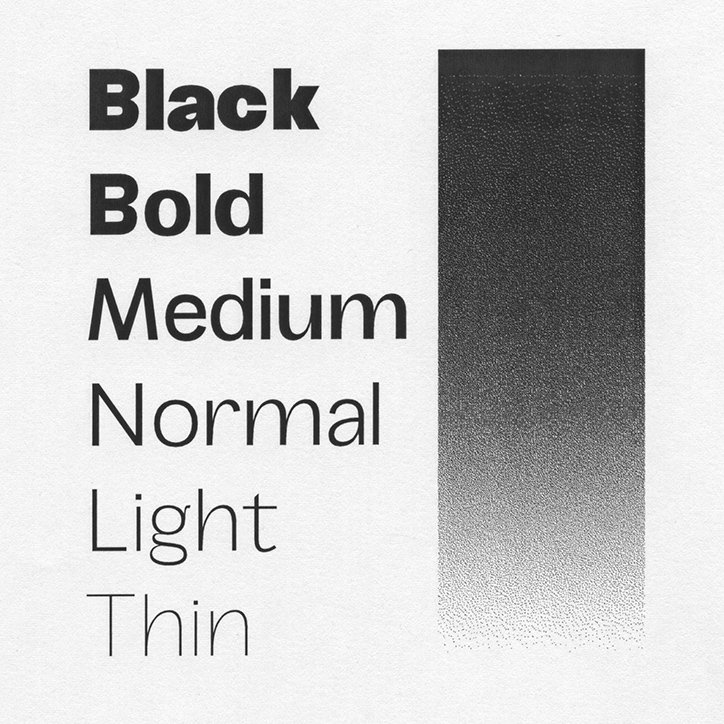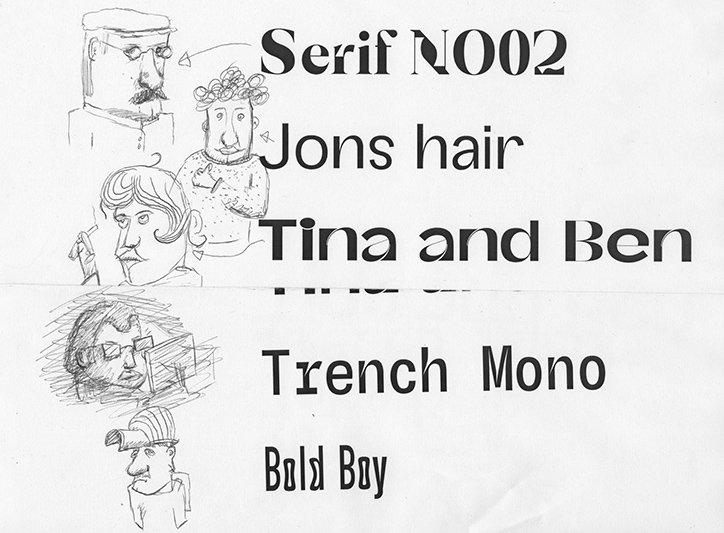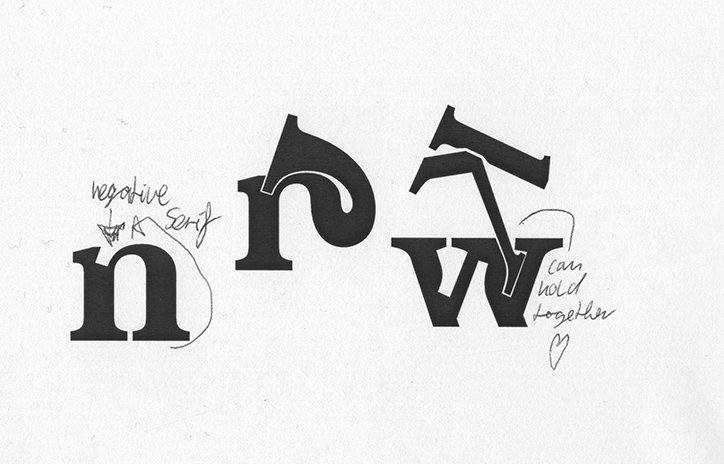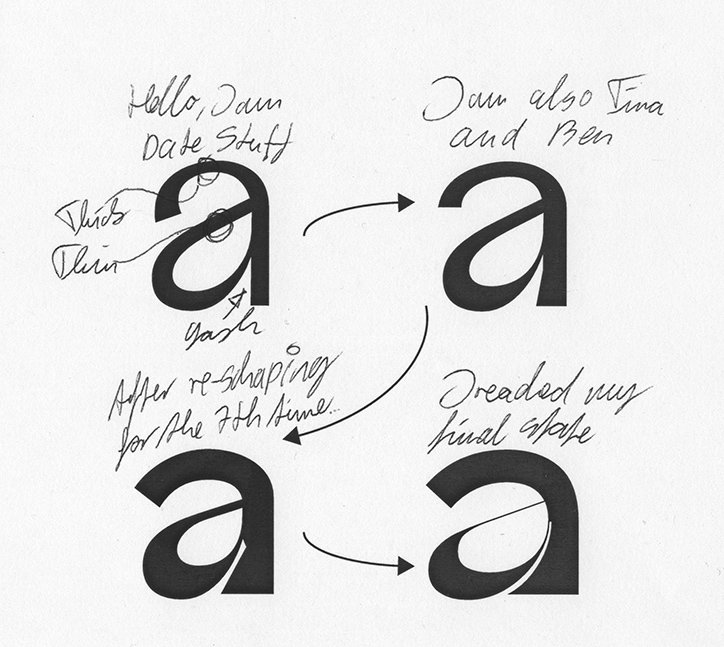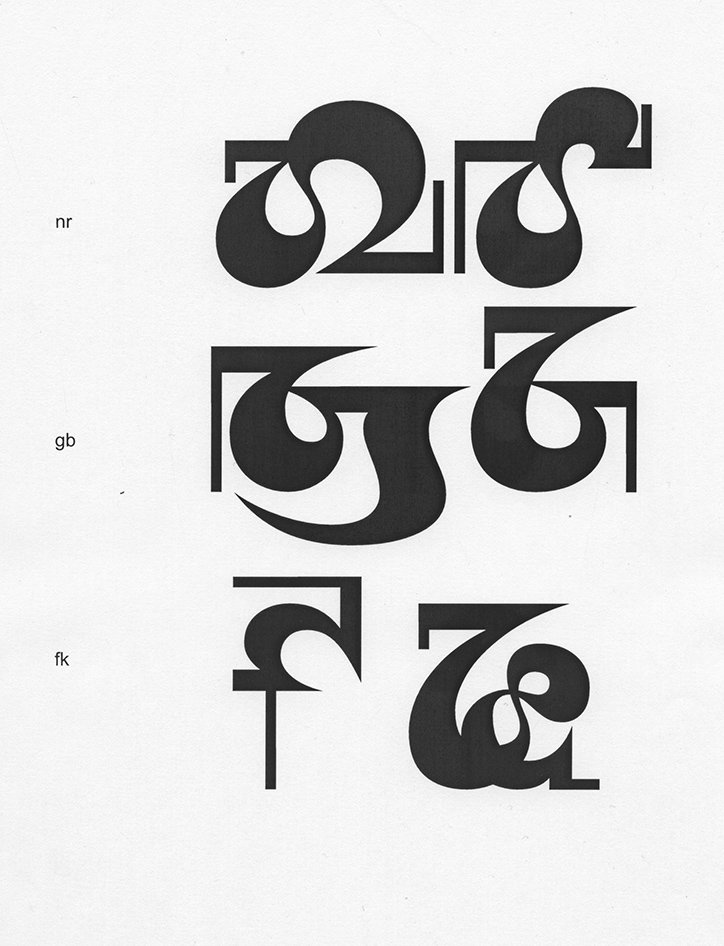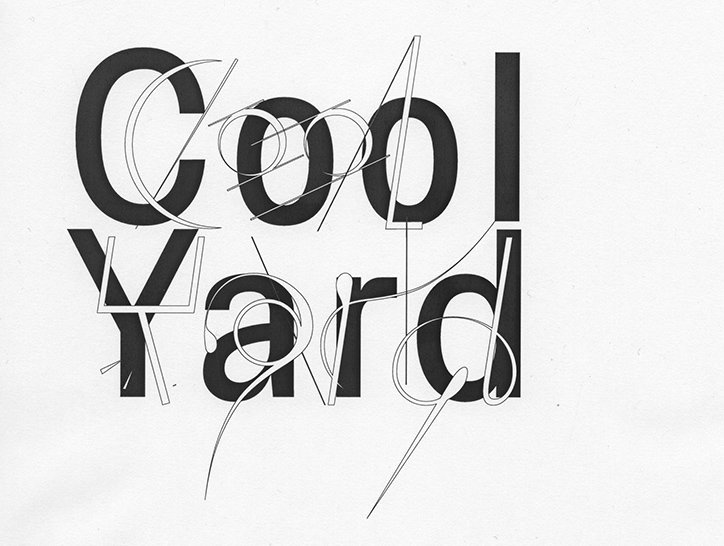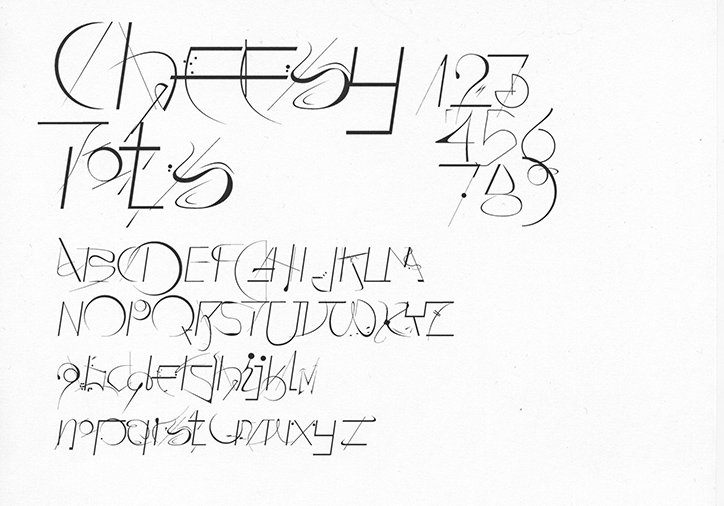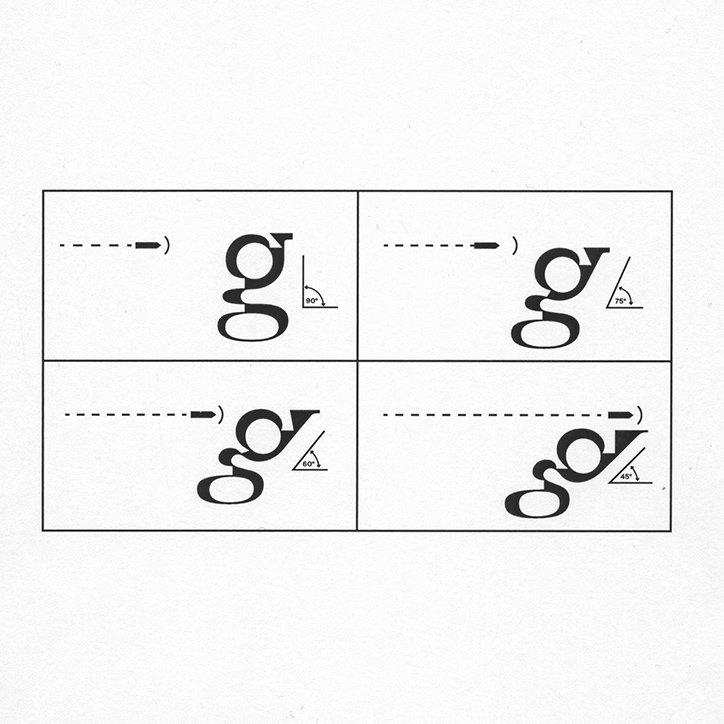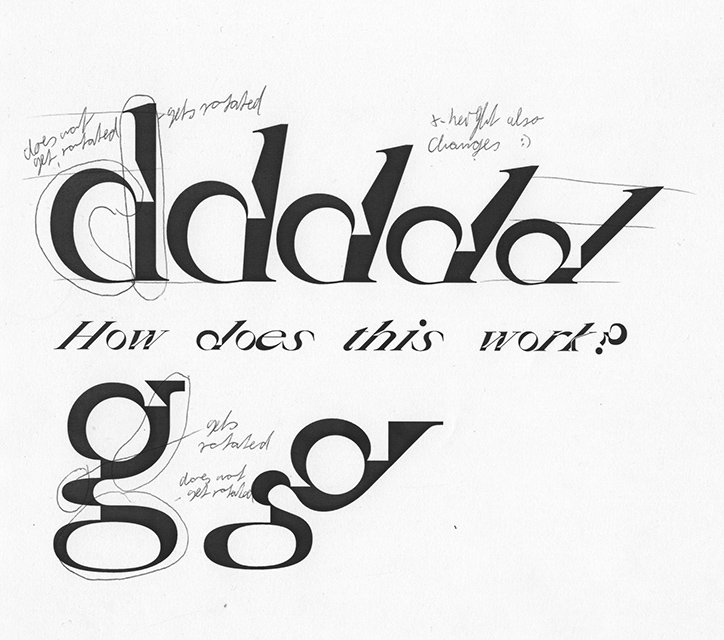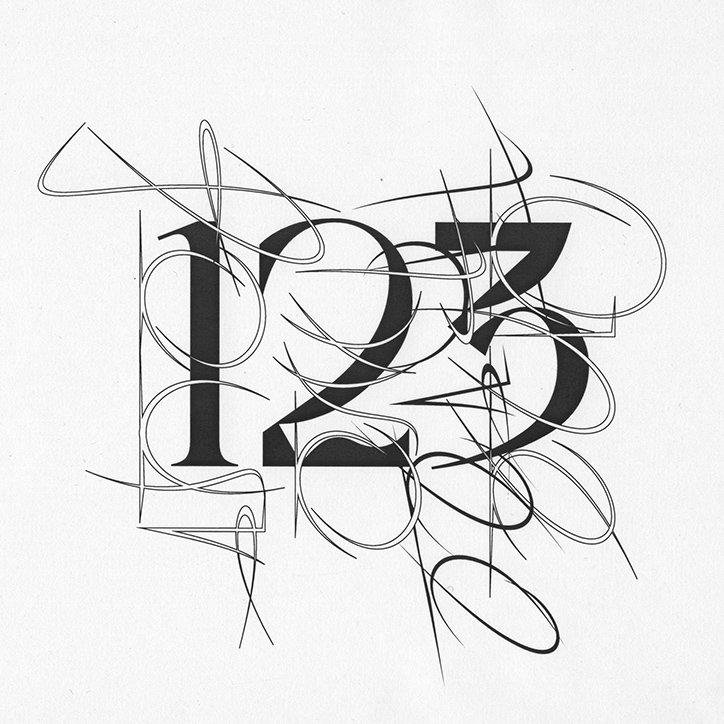
Drawing fonts is “nothing but a nice meditative state” for Erik Sachse
Erik Sachse approaches type design in a rather unique way. His fonts have an identity that goes beyond adjectives and verbal personality traits as, for Erik, his fonts are best explained through hand-drawn characters that he sketches in pencil alongside his type designs. He founded his studio, Napoleon Typefaces, in 2017 as a type foundry, but around a month ago, he converted the foundry to “a bureau for aesthetics and visual communication” to more accurately represent the studio’s creative output.
“Most people reach for higher goals in life to feel fulfilment,” explains Erik, “but they forget that everything they’ve learnt and experienced was laid on the road to get to that place. The same applies to many things, including the drawing typefaces.” That being said, Erik’s type designs iare pointedly process-led. For the 23-year-old visual communication student in Weimar, his interests lie in the process of developing a font’s identity rather than the perfect finished product.
Type design for Erik consists of “plotting each point in its correct place until the font develops some sort of identity”. While he’s undergoing this process, he comes up with comics to make the font more vivid, establishing a fully-formed character for each design. He finds the act of drawing typefaces “nothing but a nice meditative state”. And this design process takes him “deep into a world where [he] quickly loses time”. Erik refers to this mode of working as the “passive” side to his practice. In this passive state of mind, he feels free to “experiment with shapes and feel how letters work with [his] subconsciousness” while also giving rise to fictional characters that deepen the concept behind his designs.
By contrast, Erik acknowledges the alternative, active side to his practice. “While the passive part is mainly drawing typefaces and design thinking, the active part focuses on solutions to problems that occur while working on projects,” Erik explains. These problems are more practical than metaphorical and include invoicing, phone calls, programming and so on. Dividing his practice into these two parts – passive and active – allows Erik to produce work more efficiently for his bureau; which is currently based out of a library computer, Erik’s personal laptop, and his office desk where he works as a research assistant.
He additionally likens his type design process to music which is “an important part of [his] process. He visualises a musical rhythm to a pattern or grid “laid out nicely without any padding on a sheet”. Music is an audible distraction from the designer’s hectic visual world, he compares a melody to a gradient, high-pitched tones to the colour red and low-pitched tones to the colour blue. In turn, his designs become even more rooted in his own psyche, and along with the comics that accompany his typefaces’ personalities, Napoleon Typefaces is a highly intriguing bureau shaped by its founder’s subconscious image making.